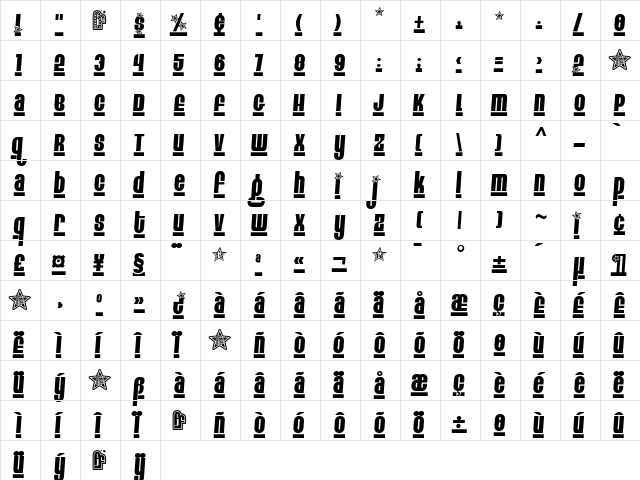
Eight Track program 4 Regular
Design Context for Eight Track program 4 Typeface
Eight Track program 4 is a composed and adaptable typeface that performs quietly and consistently across a wide range of design contexts.